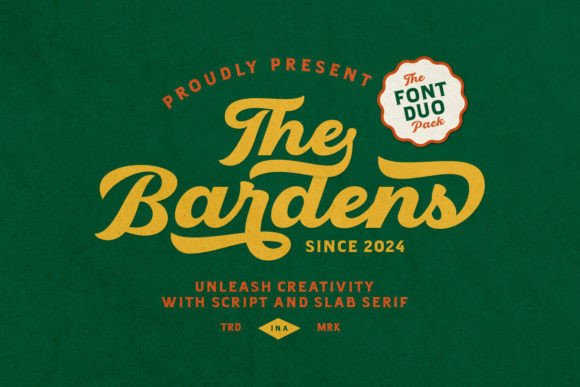
Bardens Font: A Retro Font Duo for Nostalgic Designs
In the world of typography, fonts play a crucial role in conveying the tone and aesthetic of a brand or design. For those looking to evoke a nostalgic and vintage vibe, the Bardens Font duo is an excellent choice. This comprehensive font package combines a flowing script font with a bold slab serif font, creating a visually appealing contrast that’s perfect for a wide range of design applications.
What is Bardens Font?
Bardens Font is a retro font duo that consists of two distinct fonts: a script font and a slab serif font. The script font features fluid strokes and decorative elements, making it ideal for headlines and logos, while the slab serif font offers geometric shapes and uniform stroke widths, providing a sturdy and impactful presence.
The Script Font: Elegance and Sophistication
The script font in the Bardens Font duo is designed to evoke a sense of elegance and sophistication. Its fluid strokes and decorative elements make it perfect for use in headlines, logos, and other design elements where a touch of refinement is desired. The script font is also highly versatile, supporting a wide range of languages and making it an excellent choice for global brands.
Some of the key features of the script font include:
- Fluid strokes and connections
- Decorative elements and swashes
- Support for multiple languages
- Ideal for headlines, logos, and packaging design
The Slab Serif Font: Bold and Impactful
The slab serif font in the Bardens Font duo is designed to provide a bold and impactful presence. Its geometric shapes and uniform stroke widths make it perfect for use in design elements where a strong and sturdy font is needed. The slab serif font is also highly legible, making it an excellent choice for body text and other applications where readability is crucial.
Some of the key features of the slab serif font include:
- Geometric shapes and uniform stroke widths
- Bold and impactful presence
- Highly legible
- Ideal for body text, headlines, and advertising
The Benefits of the Bardens Font Duo
The Bardens Font duo offers a range of benefits for designers and brands looking to create nostalgic and vintage-inspired designs. Some of the key benefits include:
- Visually appealing contrast between the script and slab serif fonts
- Perfect for branding, packaging, advertising, and print materials
- Suitable for baseball or football logos and other sports-related designs
- Supports multiple languages
- Highly versatile and adaptable
Design Applications for the Bardens Font Duo
The Bardens Font duo is suitable for a wide range of design applications, including:
- Branding and packaging design
- Advertising and marketing materials
- Print materials such as brochures and flyers
- Baseball or football logos and other sports-related designs
- Retro and vintage-inspired designs
Language Support
The Bardens Font duo supports multiple languages, making it an excellent choice for global brands and designers. The font duo includes support for:
- Latin-based languages such as English, Spanish, French, and German
- Non-Latin languages such as Arabic, Chinese, and Japanese
In conclusion, the Bardens Font duo is an excellent choice for designers and brands looking to create nostalgic and vintage-inspired designs. The combination of a flowing script font and a bold slab serif font creates a visually appealing contrast that’s perfect for a wide range of design applications. With its support for multiple languages and highly versatile design, the Bardens Font duo is an excellent addition to any designer’s font library.